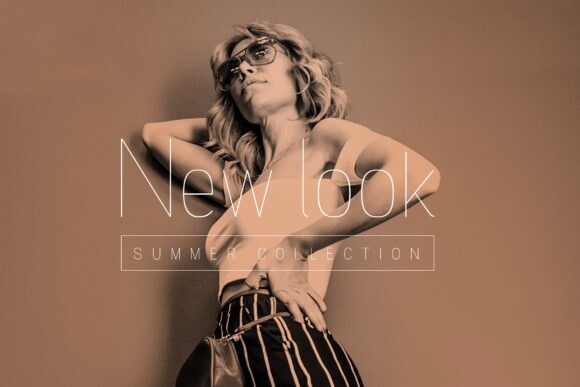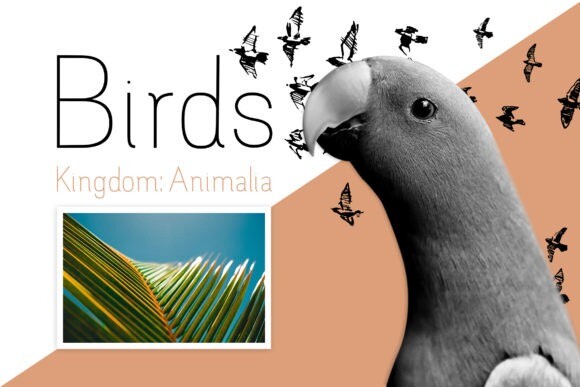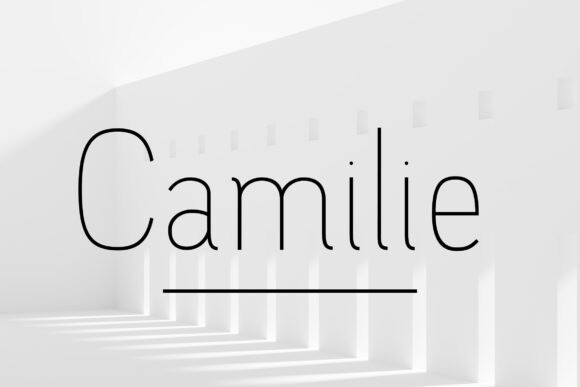
Camilie Font Family
The Camilie is a 5 weight sans serif family. It has thin letters which will give your design a simple, yet modern and elegant feel.